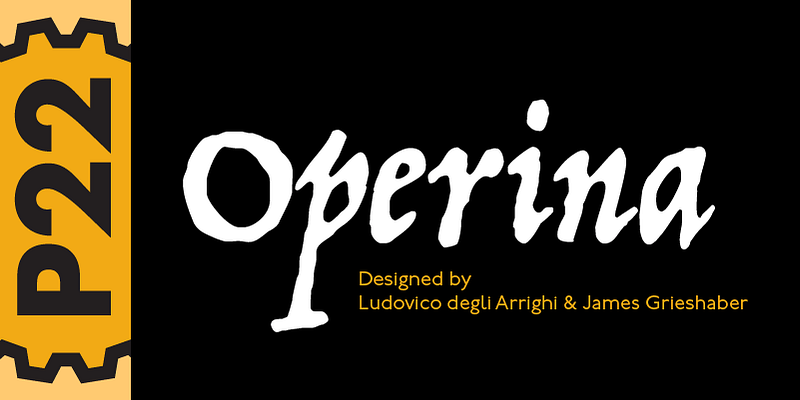
P22 Operina Pro Font Free Download is an elegant and versatile serif typeface with classic proportions and modern details. Designed for high-end branding, editorial design, and sophisticated print materials, this font blends timeless elegance with contemporary functionality. With its refined serifs and well-balanced curves, it works beautifully in both headlines and body text.
P22 Operina Pro Font offers a distinctive and elegant style suitable for luxury brands, professional documents, invitations, and any project that requires a sense of sophistication and clarity. Its clean and polished design ensures excellent legibility while adding a refined touch to your typography.